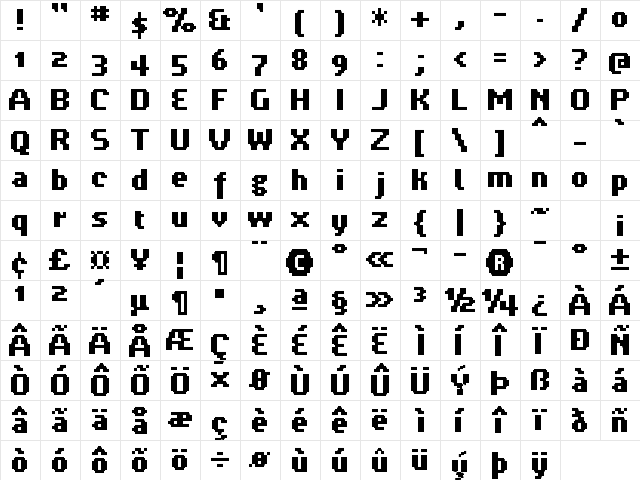
UF PT Bossa Bold Regular
| Foundry | Ultrafonts |
| Designer | Hugo Perez of PixieType |
Design Context for UF PT Bossa Bold Typeface
UF PT Bossa Bold is a composed and adaptable typeface that performs quietly and consistently across a wide range of design contexts. The heavy weight commands attention and anchors typographic hierarchies.